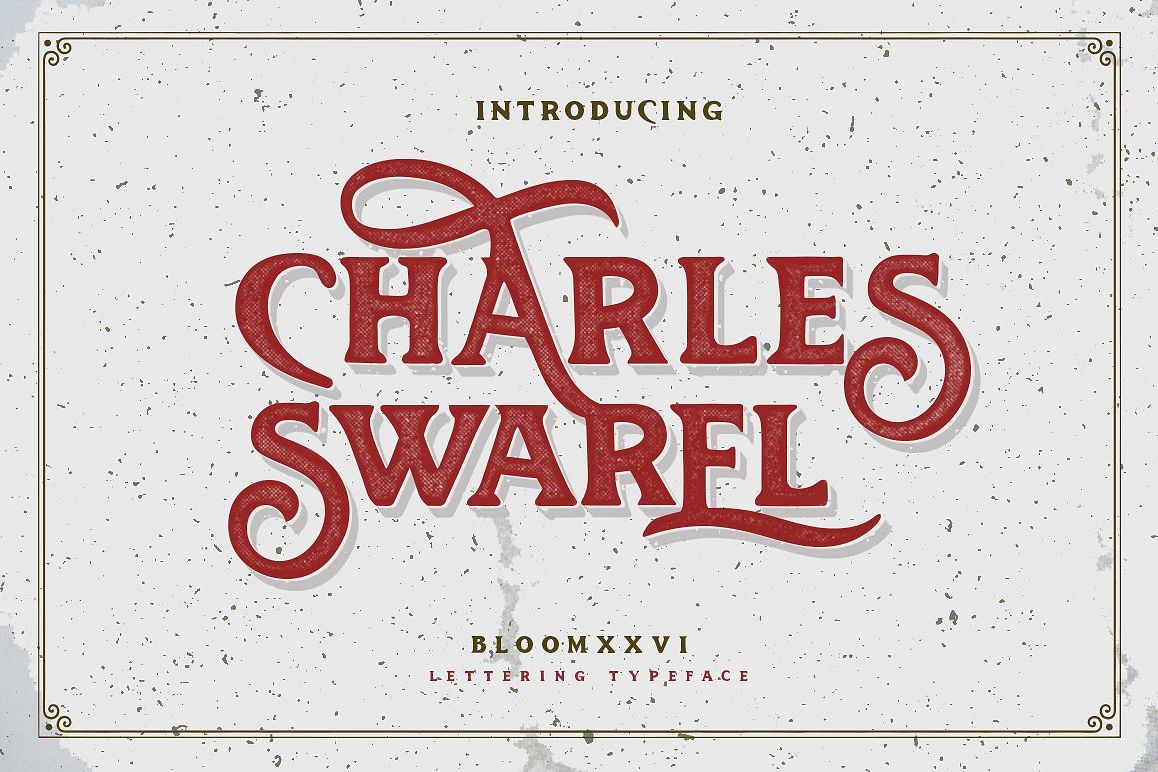
Charles Swarel
ntroducing Charles Swarel Stylish typeface dedicated to those who are free in expressing design. Charles Swarel Typeface best uses for headings, Logo type, quotes, apparel design, invitations, flyer, poster, greeting cards, product packaging, book cover, printed quotes, cover album, movie, etc.What You Get
• Character set A-Z with special uppercase letters
• Stylistic Alternates And Ligatures